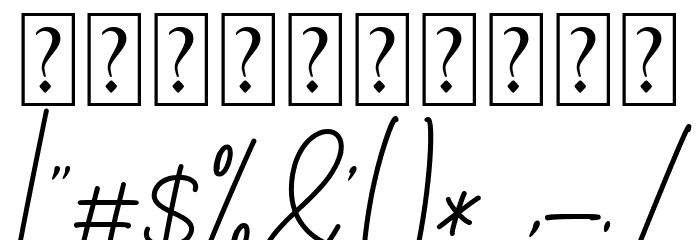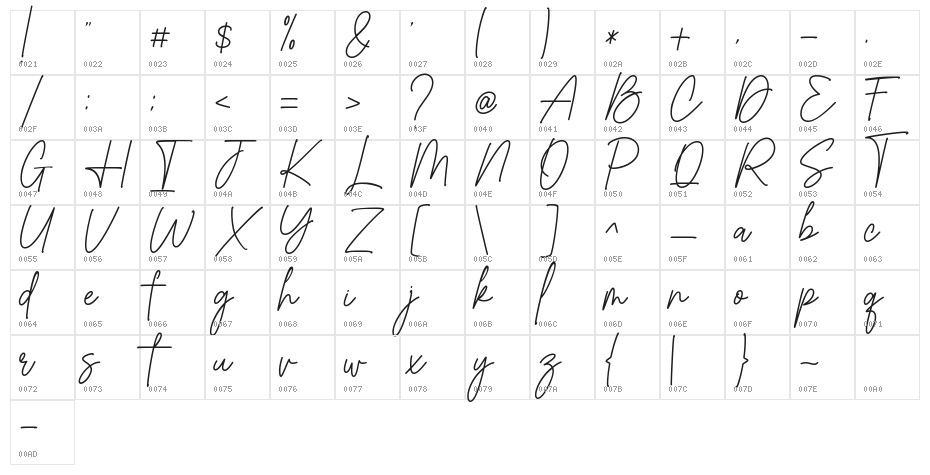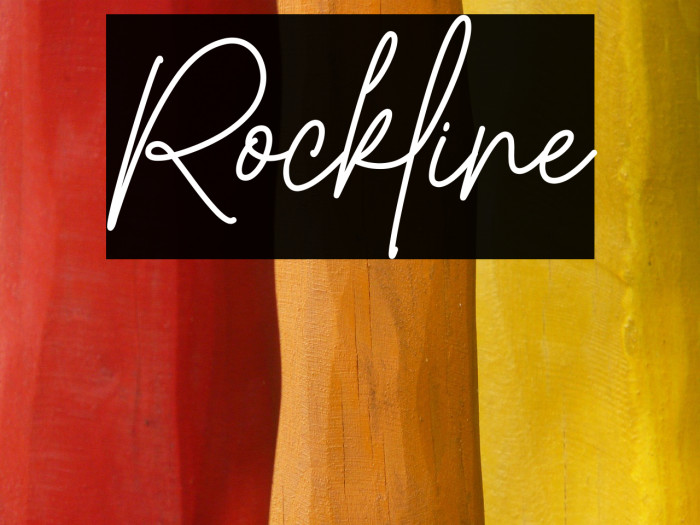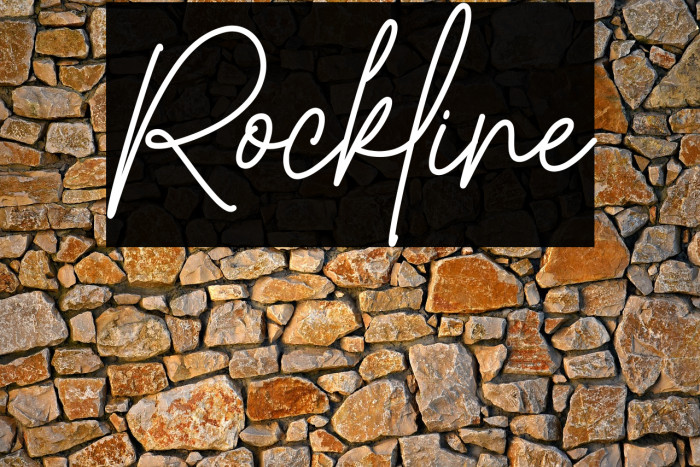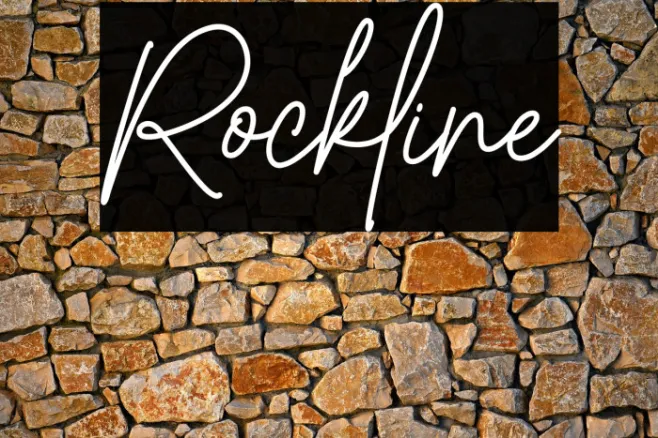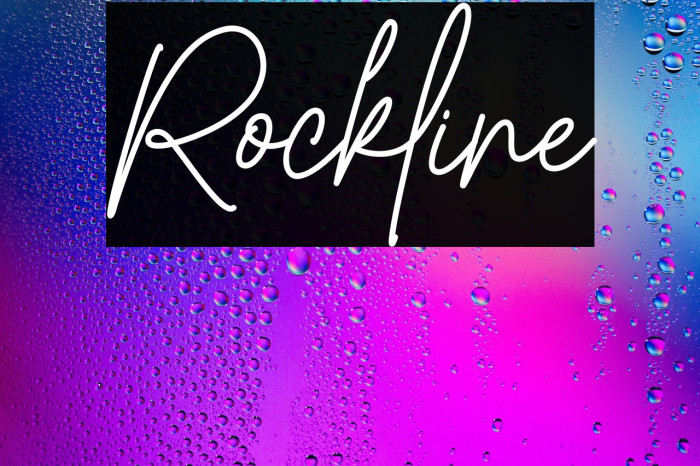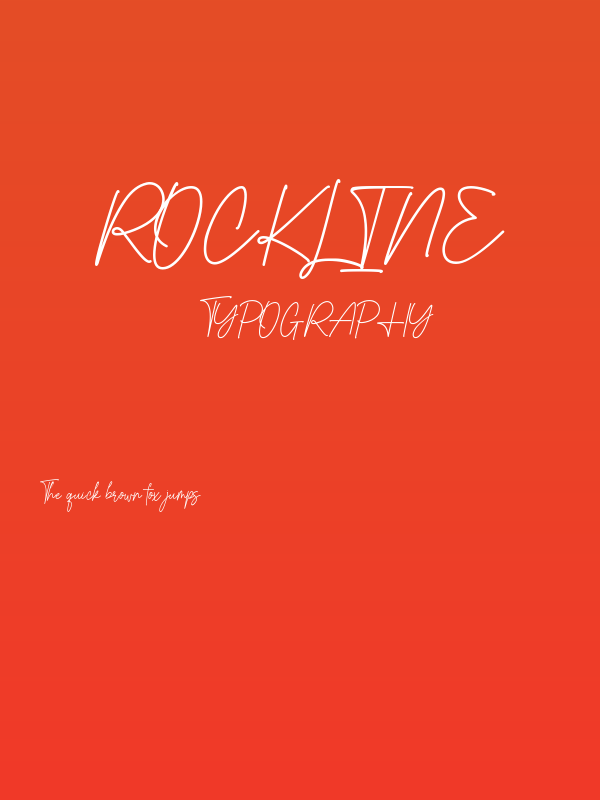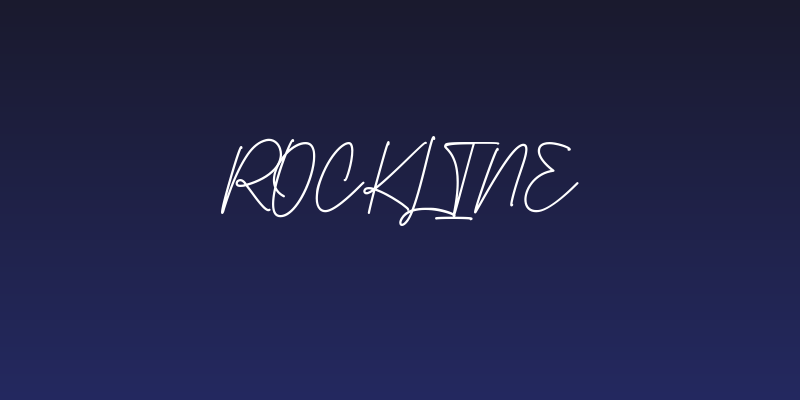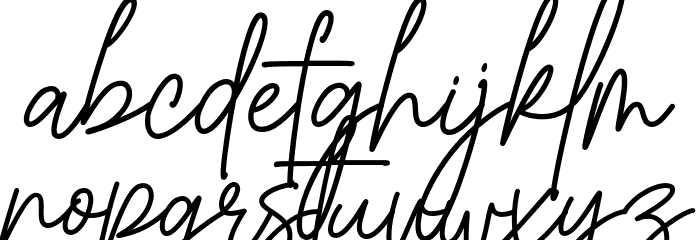
Rockline Font
Rockline Description
This font exudes a lively and energetic vibe with its handwritten style, characterized by fluid and dynamic strokes. The uppercase letters are tall and slender, while the lowercase letters maintain a consistent flow, enhancing the script-like appearance. The font's playful nature is evident in its slightly irregular lines, giving it a personal and informal touch. It is well-suited for creative projects that require a personal and approachable feel. The special characters are integrated seamlessly, maintaining the font's overall aesthetic.